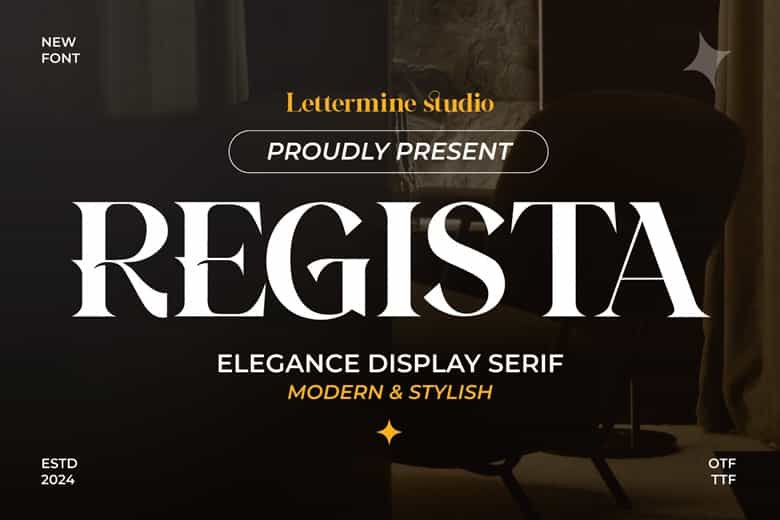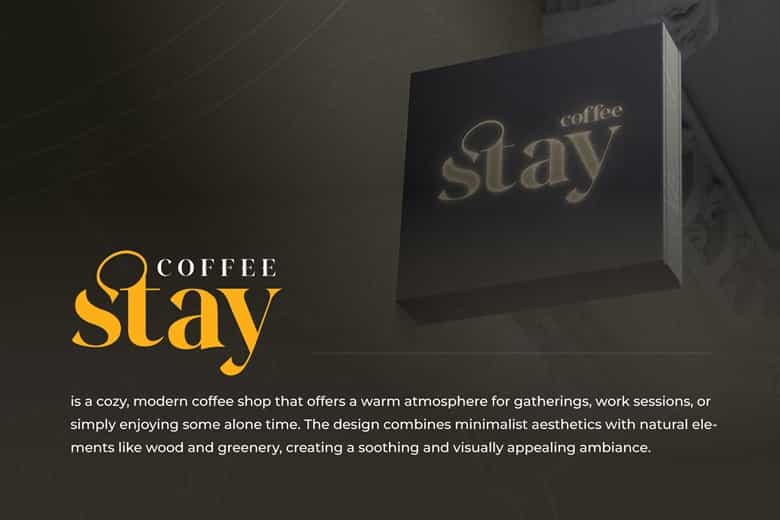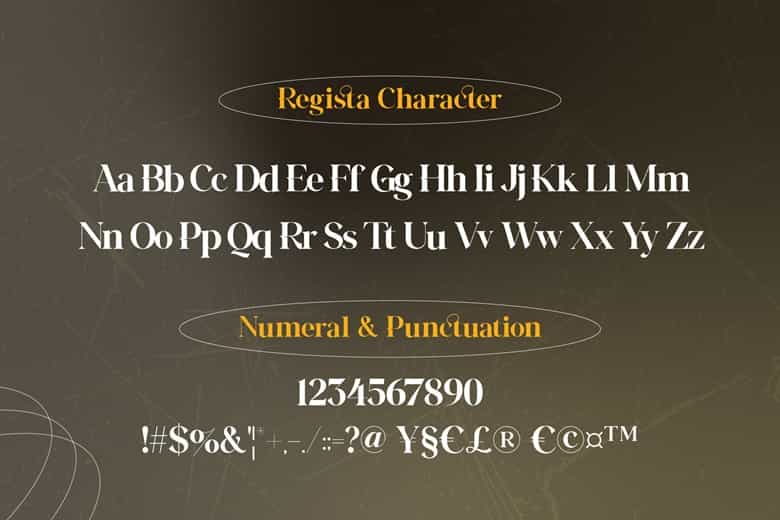
Regista is a stylish display serif typeface that brings class with the touch of modern style to it. Every symbol provided is elegant and refined, packed with clear, strong serifs and chiseled outlines guaranteeing a clean, modern look. thanks to its clean cut design, it is suitable for corporate, publication designs and any project that requires elegance.